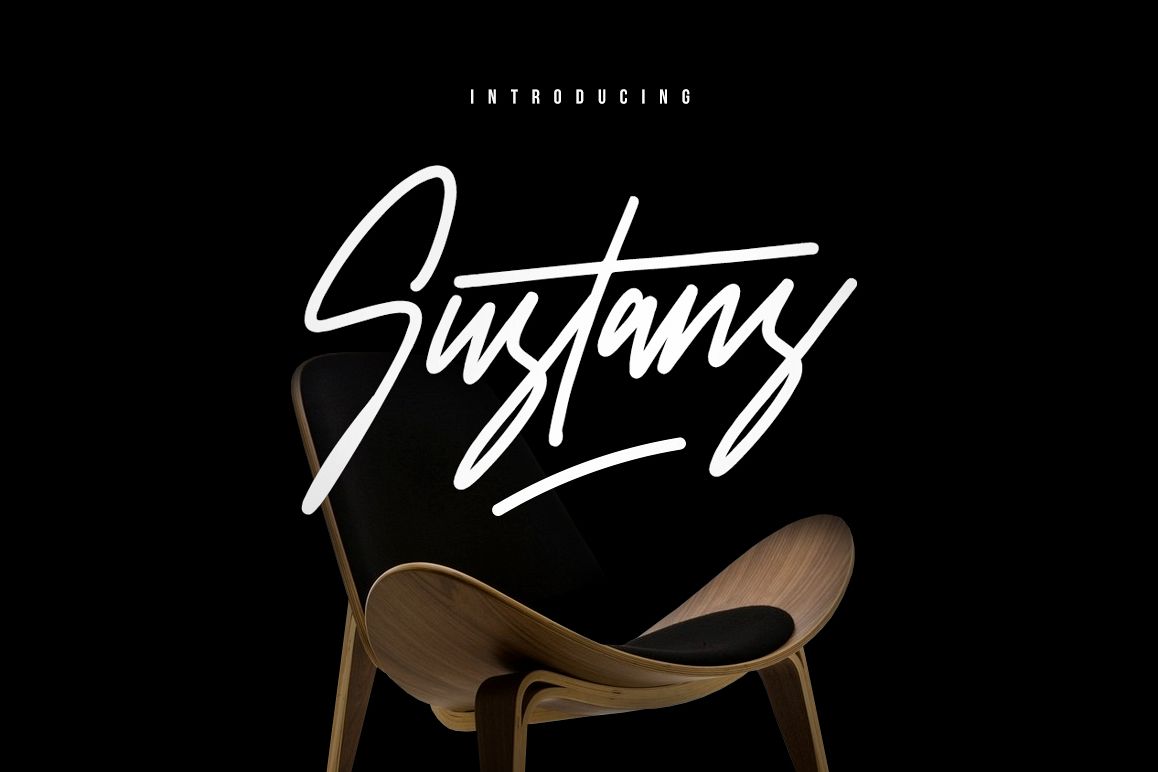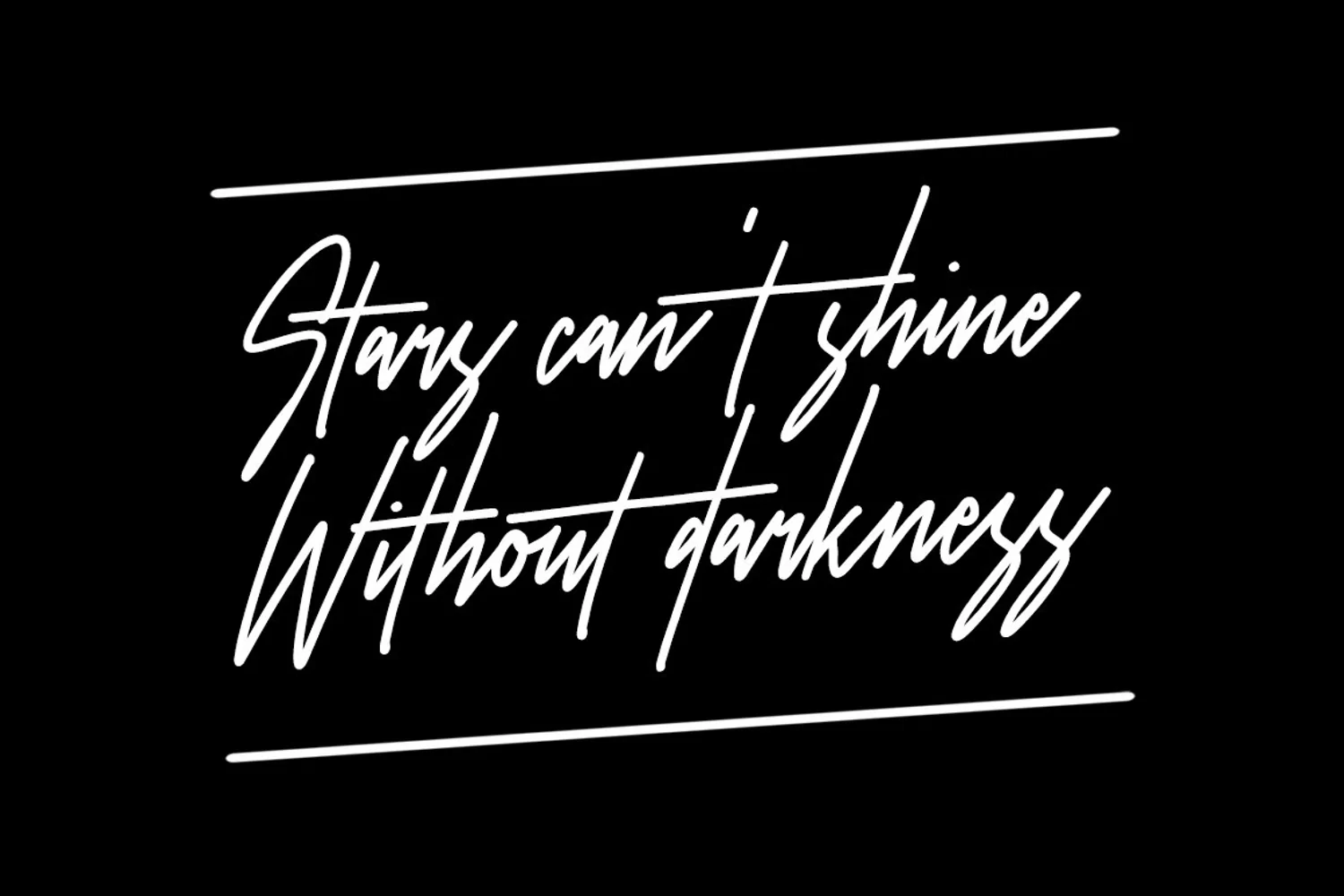
Give your designs an authentic handcrafted feel. "Sustans Typeface" is perfectly suited to signature, stationery, logo, typography quotes, magazine or book cover, website header, clothing, branding, packaging design and more. Included Stylistic Alternates & Ligatures.Use the alternates in Adobe Illustrator and Adobe Photoshop, this is the quick tutorial: